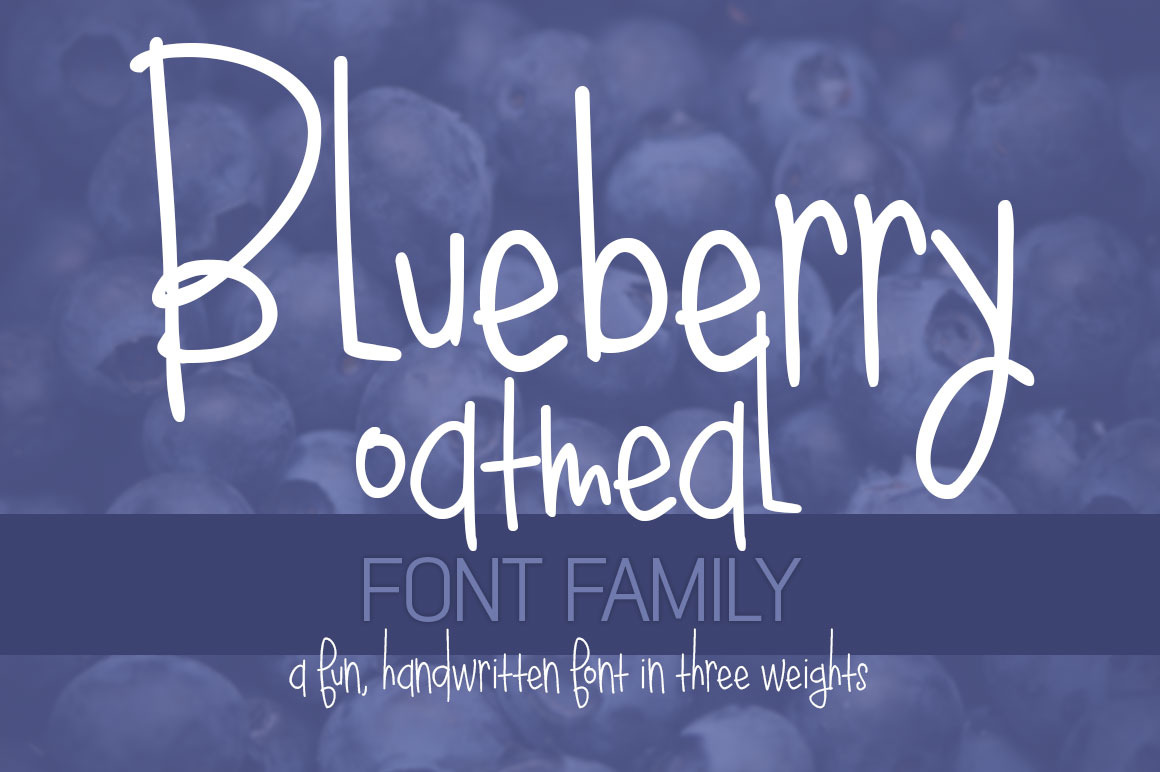
Blueberry Oatmeal Font Family
Blueberry Oatmeal is a fun handwritten type in three weights. The various letter heights and sizes give it a unique handwritten look.